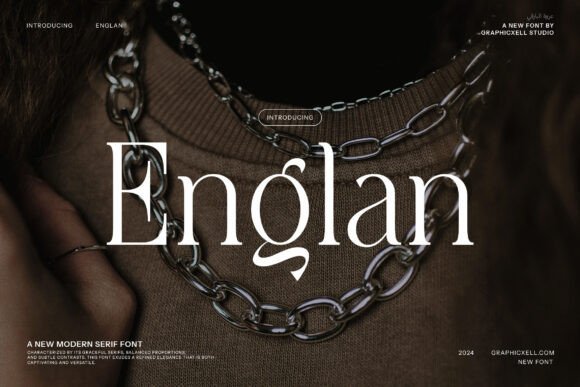
Introducing Englan Font: Elevate Your Designs with Elegance and Sophistication
When it comes to creating visually stunning designs, the choice of font plays a crucial role. A well-crafted font can instantly elevate the aesthetic appeal of your project, conveying a sense of style and sophistication. This is where Englan Font comes into play – an elegant serif font that embodies the essence of classic typography with a modern twist.
What is Englan Font?
Englan is an elegant serif font characterized by its smooth, classic letter shapes. Its design is rooted in traditional typography, yet it boasts a refined and contemporary look that sets it apart from more conventional serif fonts. The font’s creator aimed to craft a typeface that exudes a sense of luxury, making it perfect for designs that demand a high level of sophistication.
Key Features of Englan Font
- Elegant Serif Design: Englan’s serif design is meticulously crafted to provide a smooth, classic look that enhances the readability and aesthetic appeal of your text.
- Graceful Lines: The font features graceful lines that contribute to its stylish and timeless appearance, making it versatile for various design applications.
- Timeless Look: Unlike trendy fonts that may quickly become outdated, Englan’s classic design ensures it remains stylish and relevant for years to come.
- High Versatility: Englan is suitable for a wide range of design projects, including invitations, logos, headlines, and any other application where a touch of elegance is desired.
Ideal Use Cases for Englan Font
Englan’s versatile design makes it suitable for various applications. Here are some ideal use cases where Englan truly shines:
- Invitations: Whether it’s a wedding invitation, a birthday party invite, or any formal event, Englan adds a touch of sophistication and elegance.
- Logos: For businesses aiming to project a luxurious and professional image, Englan can be a great choice for their logo.
- Headlines: Englan’s readability and stylish appearance make it perfect for headlines in magazines, newspapers, and digital publications.
- Branding: For brands in the luxury sector, such as high-end fashion, jewelry, or hospitality, Englan can help reinforce their brand image.
Typography Tips for Using Englan Font
To maximize the impact of Englan in your designs, consider the following typography tips:
- Pair with Complementary Fonts: When combining Englan with other fonts, opt for those that complement its classic and elegant feel. Simple sans-serif fonts or modern script fonts can create a beautiful contrast.
- Pay Attention to Spacing: Adequate spacing between letters and lines can enhance readability and ensure your text doesn’t appear cluttered.
- Experiment with Weights: If available, experimenting with different weights of Englan can add depth to your design. Using both light and bold versions can create visual interest.
- Consider Color Choices: The color of your text should complement the overall design. Neutral colors like black, navy, or gray often work well, but feel free to experiment with other colors that match your brand or theme.
Englan Font offers a perfect blend of elegance and sophistication, making it an excellent choice for designers looking to elevate their projects. Its classic serif design, coupled with smooth and graceful lines, ensures a timeless look that can enhance a wide range of design applications. By incorporating Englan into your typography arsenal and following best practices for font usage, you can create visually stunning designs that leave a lasting impression.